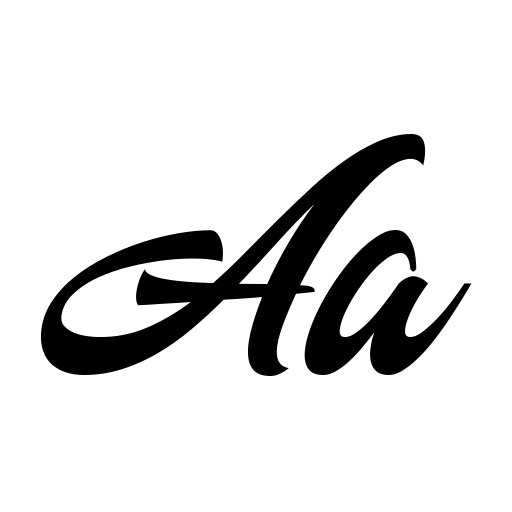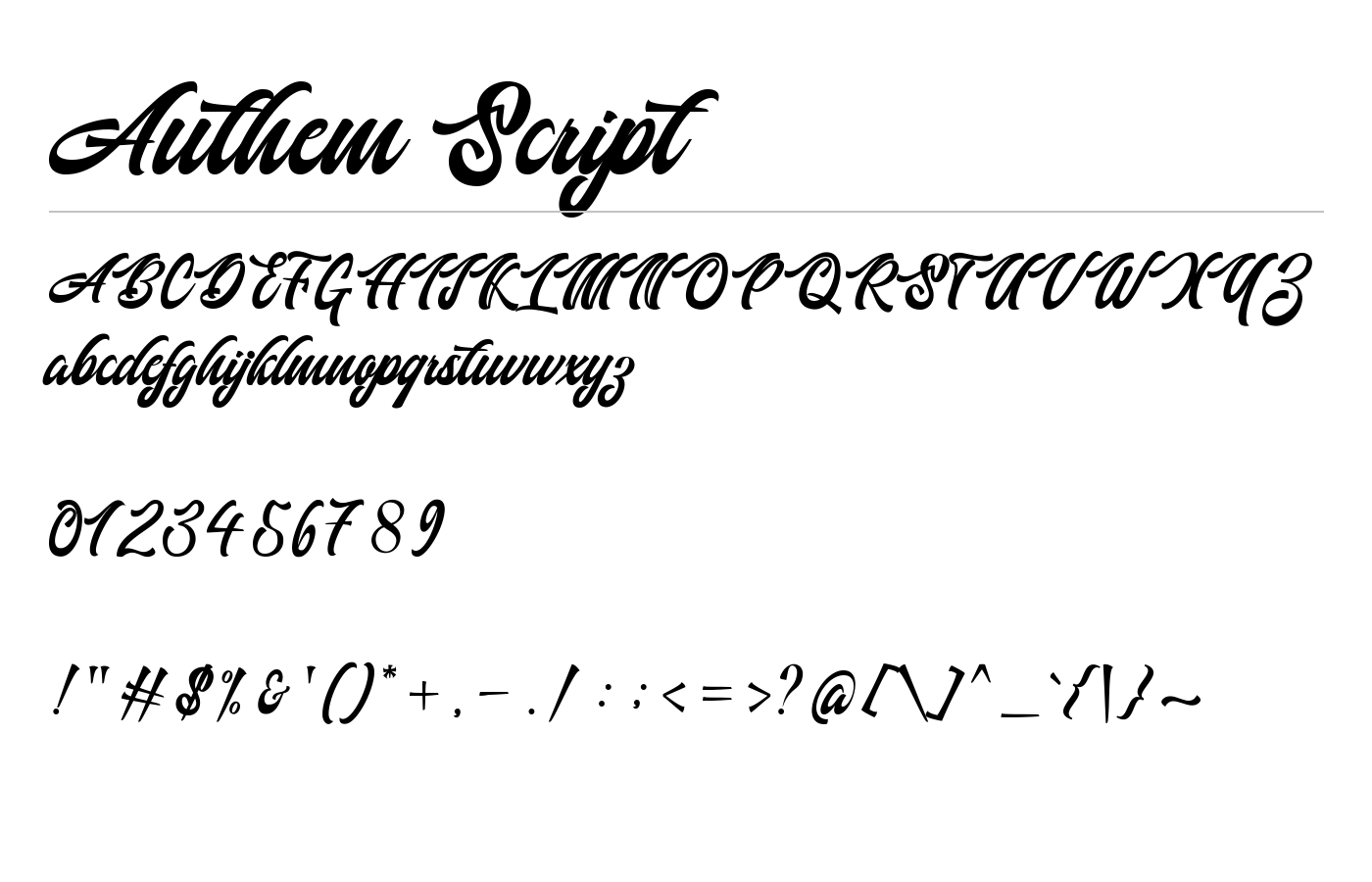
Authem Script is a bold and elegant script font featuring smooth, flowing letterforms with high contrast strokes and a lively, calligraphic style. Its cursive characters evoke a sense of sophistication and charm, making it ideal for branding, invitations, and stylish headlines that require a personal touch. This font works beautifully in designs that aim to blend classic elegance with a modern flair.
Authem Script Font
About Authem Script Font